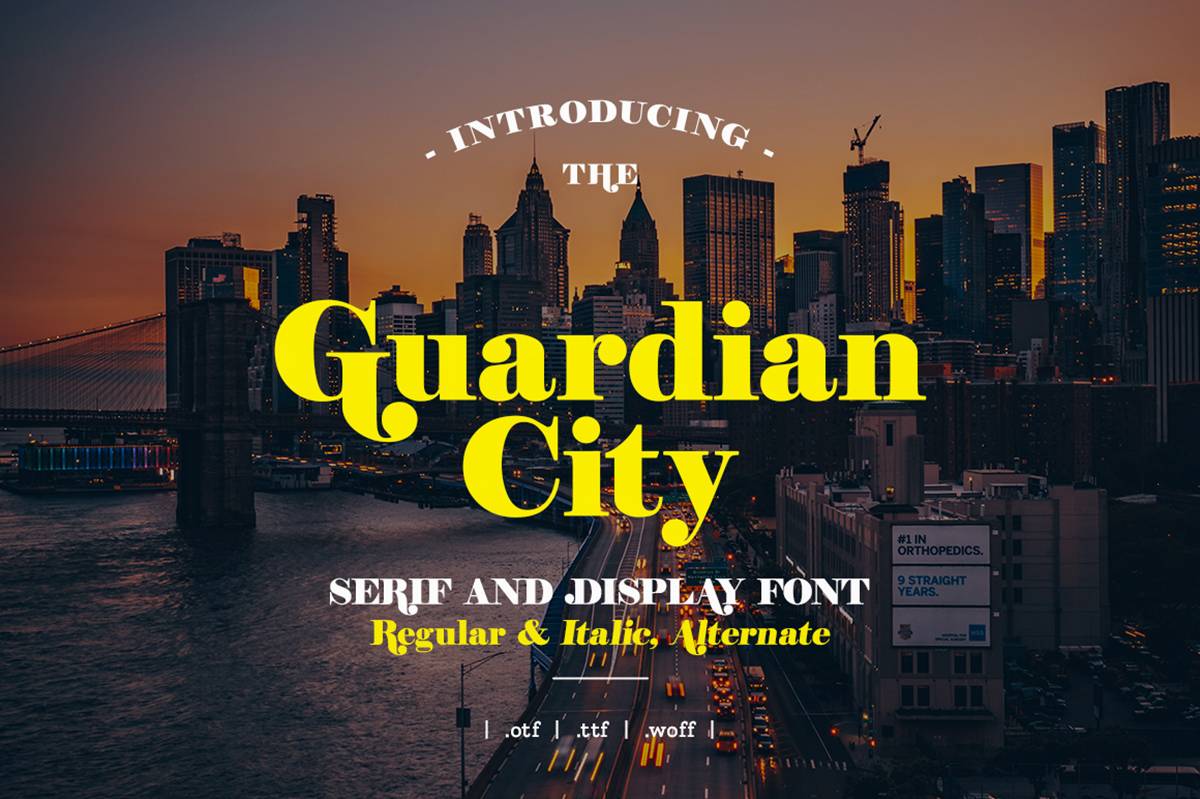
Guardian is a bold, slab serif font with a strong, confident presence and high contrast between thick and thin strokes. Its distinctive bracketed serifs and classic letterforms give it a vintage yet authoritative feel, making it ideal for headlines, editorial design, and branding that demands a sense of tradition and strength. This font works well where a bold and trustworthy impression is needed, such as in newspapers, magazines, or luxury packaging.
Guardian Font
About Guardian Font
| Font family | Guardian Font |
| Designer | Joko Triwijayanto |